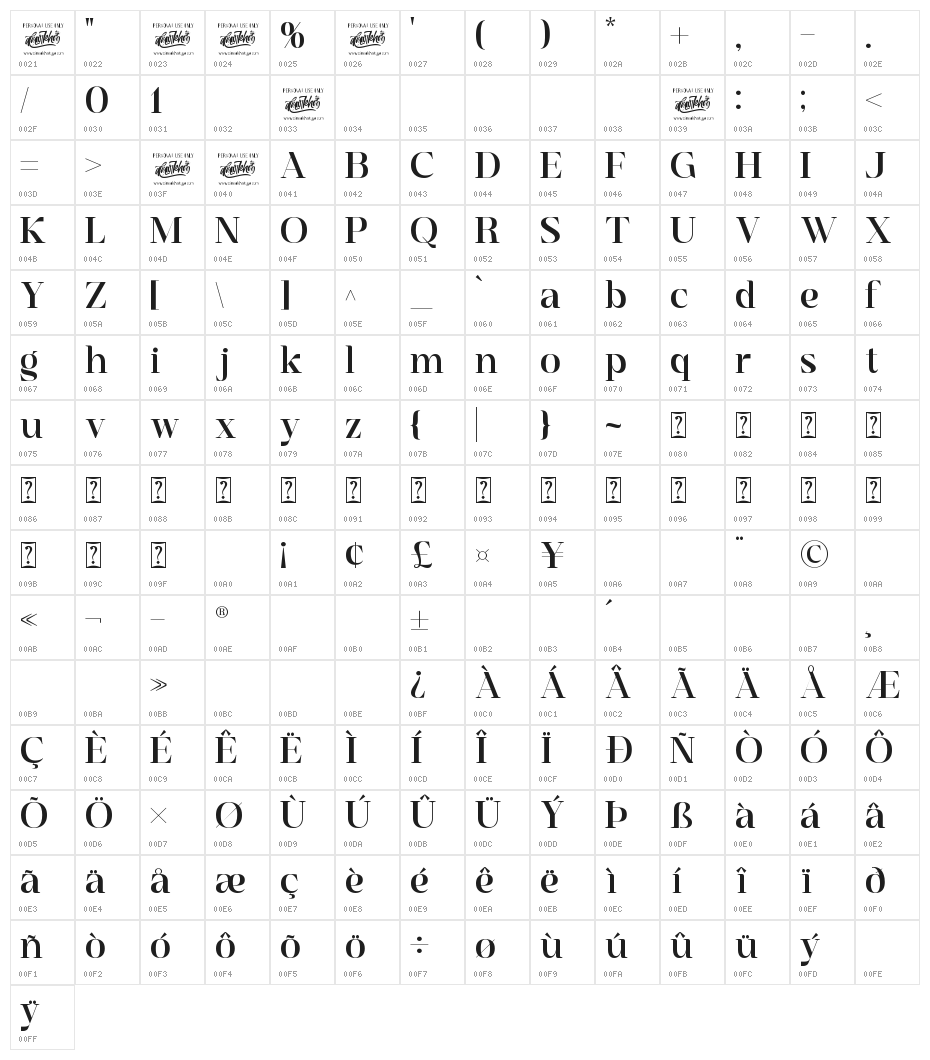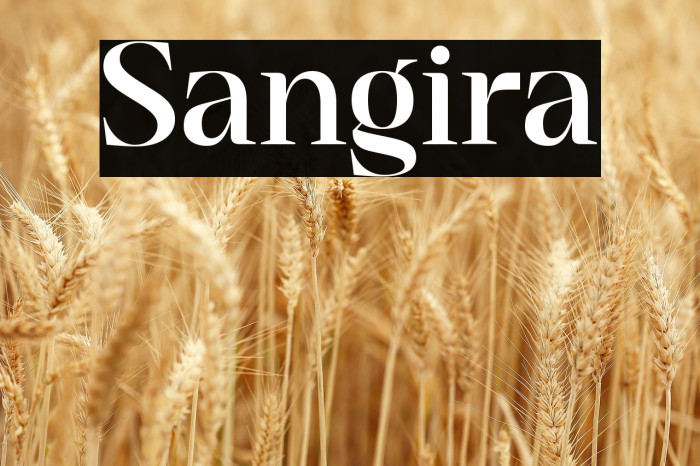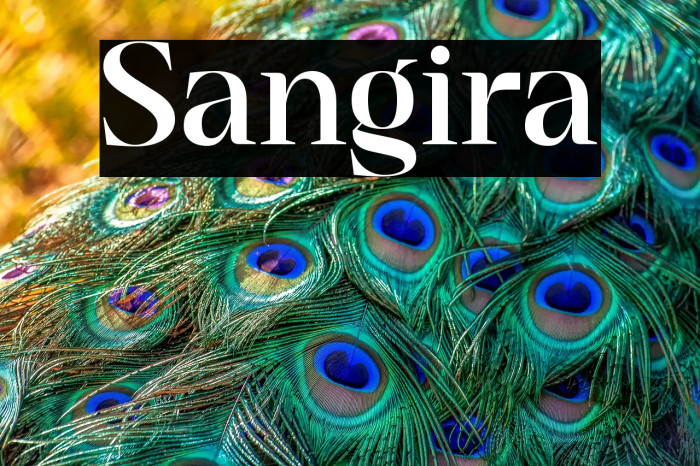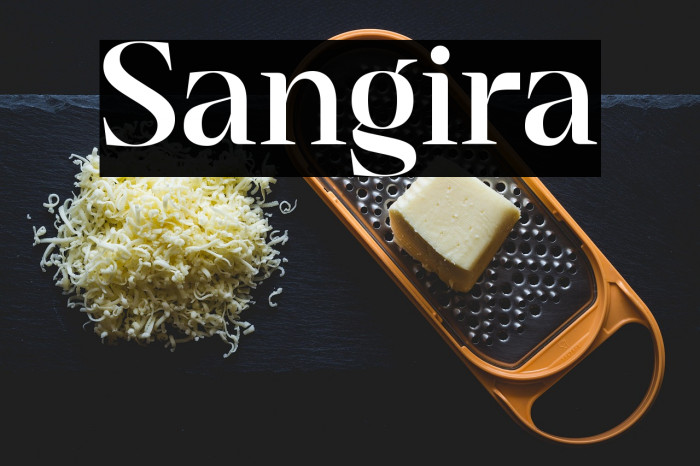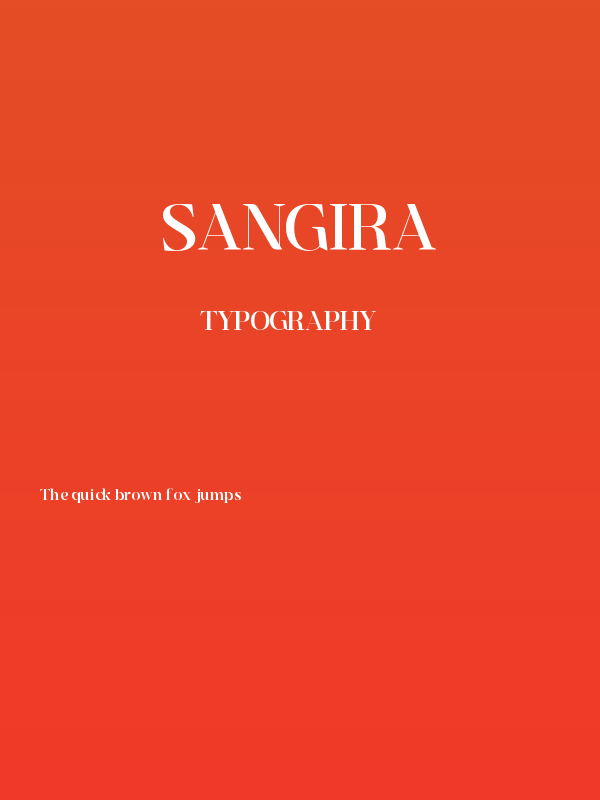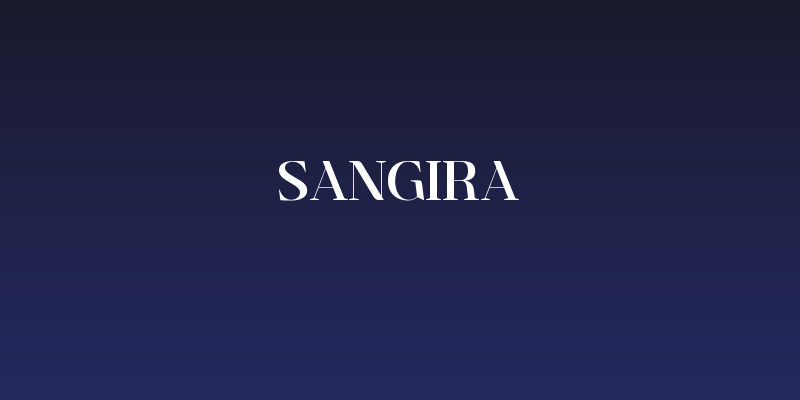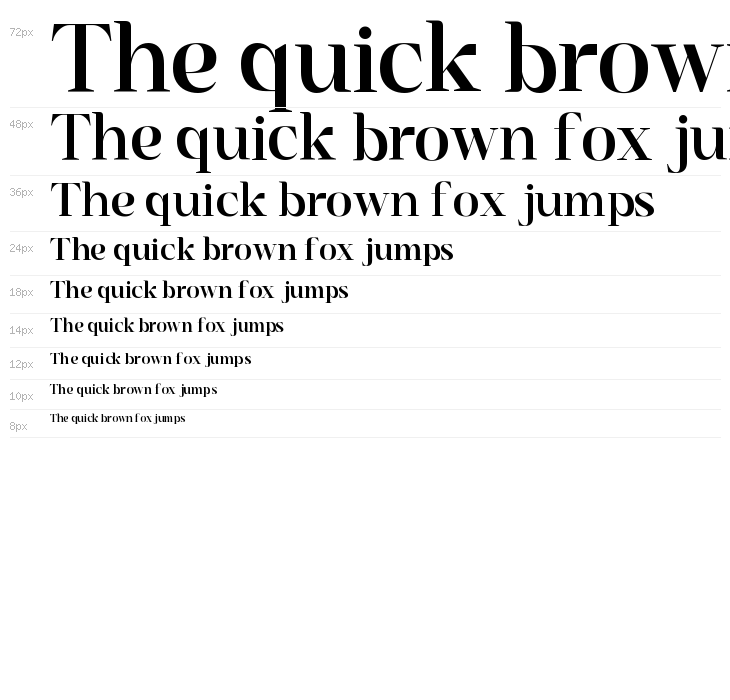
Sangira Font
Sangira Description
This font exhibits a sophisticated and elegant serif style with a modern twist. The uppercase letters are bold and commanding, featuring sharp serifs and a balanced proportion that gives them a classic yet contemporary feel. The lowercase letters maintain a consistent style, with smooth curves and a slightly condensed form that enhances readability. The numerals are distinct and clear, matching the overall aesthetic of the alphabet. Special characters are designed with the same attention to detail, ensuring a cohesive look across all glyphs. This font is versatile, suitable for both digital and print media, and can be used to convey a sense of professionalism and style.
| Use Case | Headlines, Logos, Editorial design |
| Proposed Projects | Ideal for branding, editorial design, book covers, and high-end product packaging. |